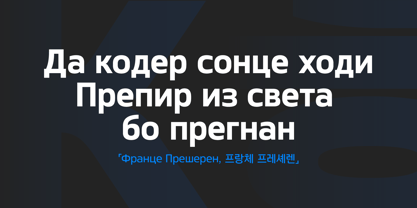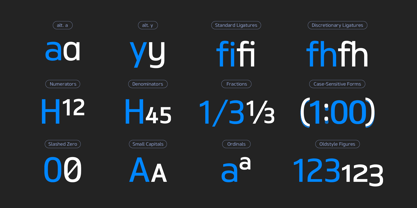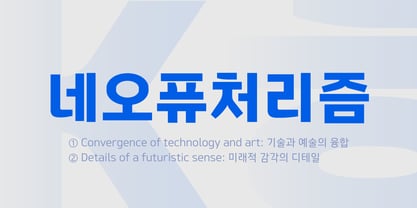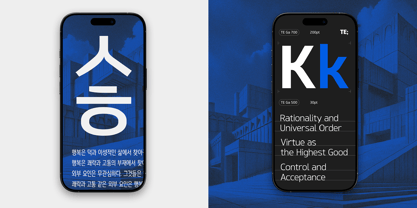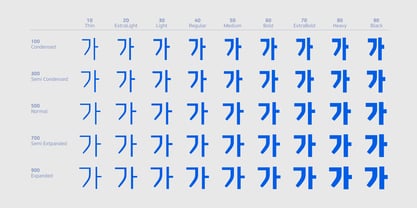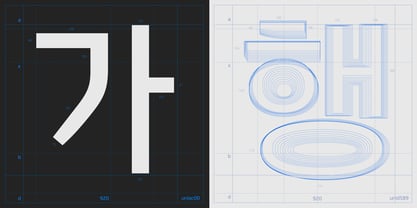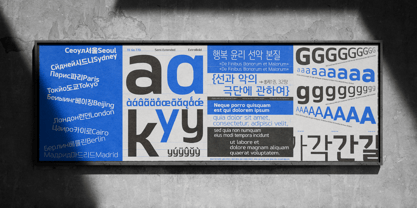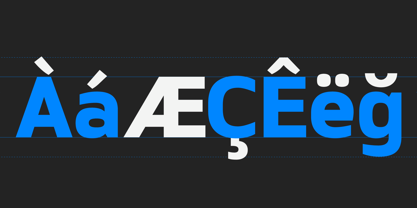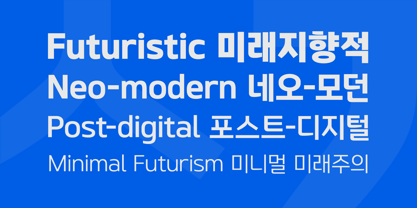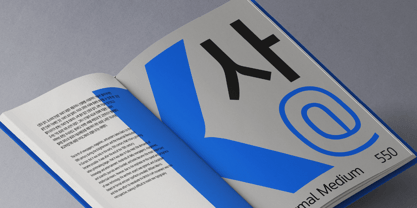
TE Ga
The TE Ga Font Family was designed by Hyun-Seung Lee and published by Typeedition. TE Ga contains 45 styles and family package options.
TE Ga Family is a futuristic, neo-modern sans-serif typeface that is clean, simple and highly readable. Letters in this type family are designed with geometric shapes without any decorative distractions. The spaces between individual letter forms are precisely adjusted to create the perfect typesetting. TE Ga is a versatile type family of 45 fonts. TE Ga family consists of 9 weights (Thin, ExtraLight, Light, Regular, Medium, Bold, ExtraBold, Heavy & Black) & 5 widths (Condensed, Semi-Condensed, Normal, Semi-Expanded & Expanded). TE Ga family contains 11,172 Korean(Hangul) letters, complete MS-1252 Latin, MS-1251 Cyrillic, MS-1250 Central European, MS-1254 Turkish character sets. Each font includes proportional figures, tabular figures, numerators, denominators, superscript, scientific inferiors, subscript, fractions and case features. We highly recommend it for use in books, web pages, screen displays, and so on.